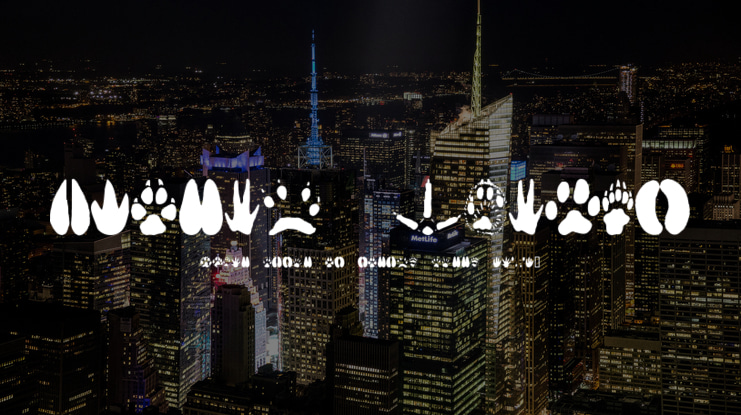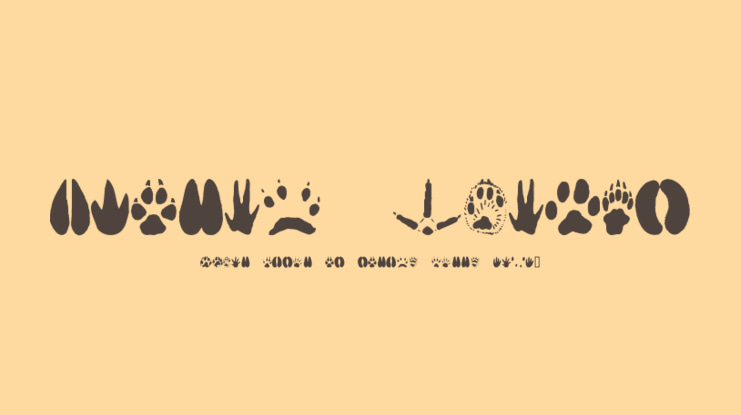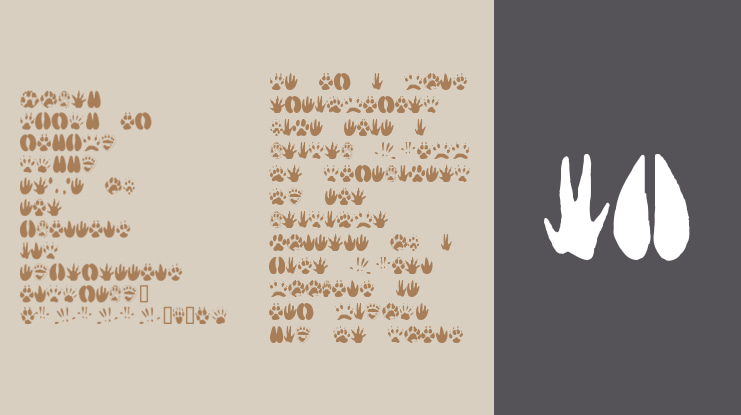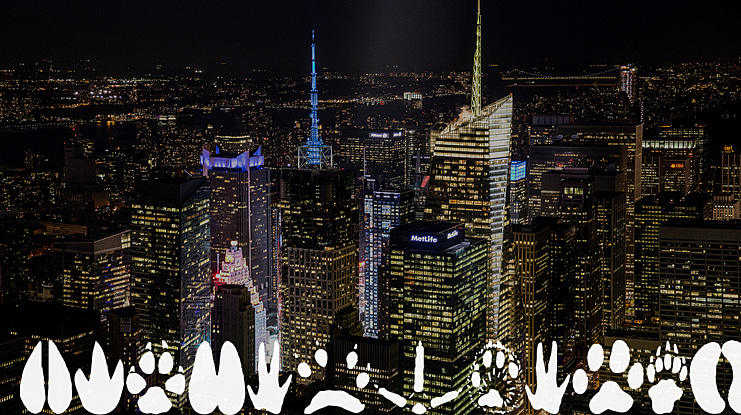
Animal tracks are cool. They also reveal nice bits about the anatomy, habits, and behavior, of the animals that leave them. Animals that walk on their toes (digitigrade) such as horses, cats, dogs, deer, sheep, etc., rely on speed to overtake their prey, or to escape. Animals that live at a slower pace such as the skunk, porcupine, etc., generally have more elaborate movements-they place both their heels and toes on the ground. Anyhow, you get the idea.
AnimalTracks is a type 1, PostScript" font for the Macintosh" and IBM" (Also available in True Type and T3). Each upper and lower-case letter of the alphabet is a different animal track. I've tried to display a wide variety of animals from domestic to exotic, but most are common animal tracks that one would see on a pretty mild hike. For the most part, all of them are the left front foot of the animal. (Although, sometimes I have used another footprint when it was more clear print.) In the wild, tracks vary according to age, sex, gait, and the medium in which the track was preserved. These prints are, on the whole, pretty darn good examples.
When you press the Option key and the character at the same time, the opposite print appears (unless there was no Option letter available, but I plan to include these opposites using another key at a later date). For example, upper-case S is a left front skunk track and Option-S (upper-case) is the right front track. But the lower-case b, the bear, has no Option key on the Mac, thus no opposite track.
The original drawings are fairly small, but I have found that most tracks print nicely from 8 to 72 point on my LaserWriter Select (600 Dpi)-8 Point is pretty darn small, however.
Animal Tracks Legend
CAPS:
A Antelope
B Beaver
C Caribou
D Domestic Cat
E Elk
F Fisher
G Grey Squirrel
H Wolverine
I Woodchuck
J Jack Rabbit
K Kit Fox
L Lynx
M Marmot
N Marten
O Opossum
P Porcupine
Q Pig
R Racoon
S Skunk
T Turkey
U Bobcat
V Wild Boar
W Whitetail Deer
X Mule Deer
Y Mink
Z Moose
small caps:
a Armadillo
b Black Bear
c Cougar
d Prarie Dog
e Muskrat
f Ferret
g Grey Wolf
h Mongrel Dog
i Coyote
j Ocelot
k Badger
l Red Squirrel
m Mountain Sheep
n Agouti
o Otter
p Peccary
q Pheasant
r Red Fox
s Muskox
t Paca
u Kinkajou
v Bison
w Mouse
x Mystery Track
y Polar Bear
z Mountain Goat